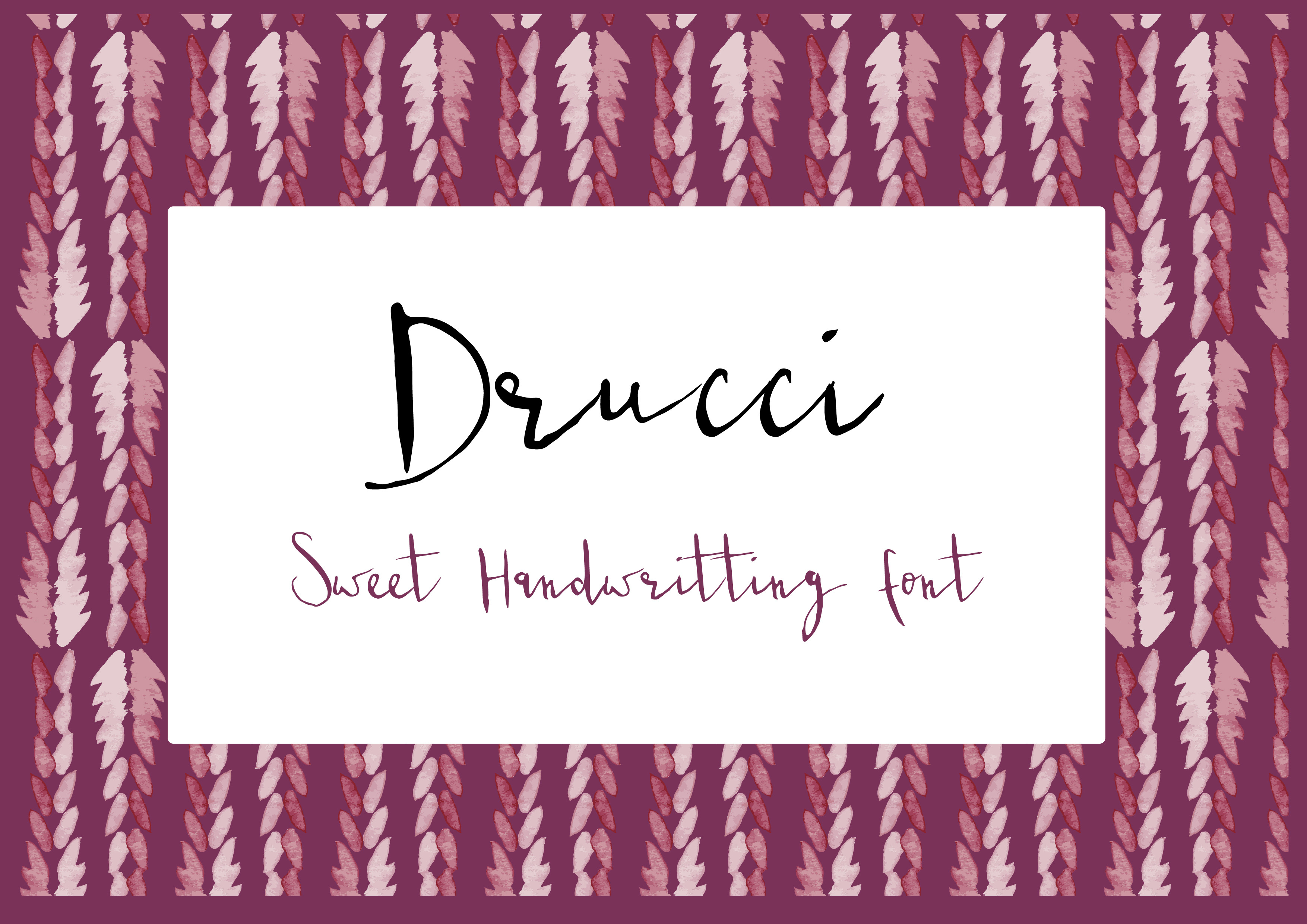
Drucci drucci - Handwritting font
Introduce my new handwriting Drucci Font. imperfect style ups and downs, smooth, clean and simple. perfect for wedding, event, invitation, escort card, table number, header menus, display, logos, slider blog, custom address, stamps, packaging, greeting card, etc.